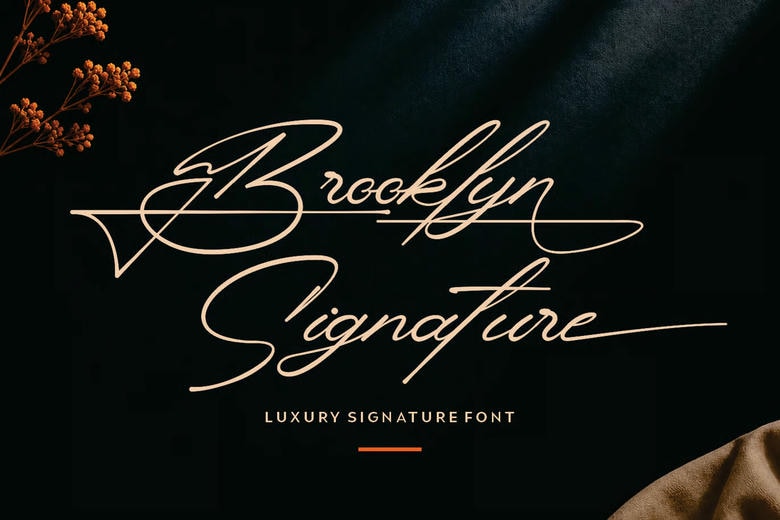
Brooklyn Signature Font
Brooklyn Signature Font is a handwritten script that brings elegance, authenticity, and a natural charm to your creative projects. Its smooth strokes and signature-style letters give your designs a modern and timeless look.
Brooklyn Signature features graceful curves and clear, easy-to-read letters in a natural handwritten style. Its fluid look gives each word an authentic handwritten touch, adding elegance and visual appeal to your designs.
This font is a great choice for branding, fashion, wedding invitations, logos, watermarks, social media, and luxury packaging. Its script style adds a modern, refined touch that helps your designs stand out in digital and print.
Brooklyn Signature also works well for product labels, magazines, business cards, beauty brands, boutique packaging, and promotional materials. Its handwritten style brings a warm, premium feel to a variety of creative projects.
Brooklyn Signature Script Font